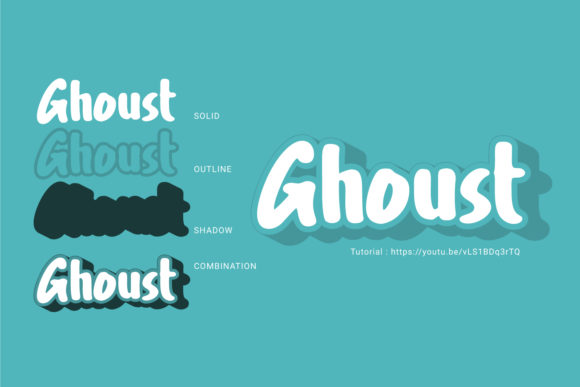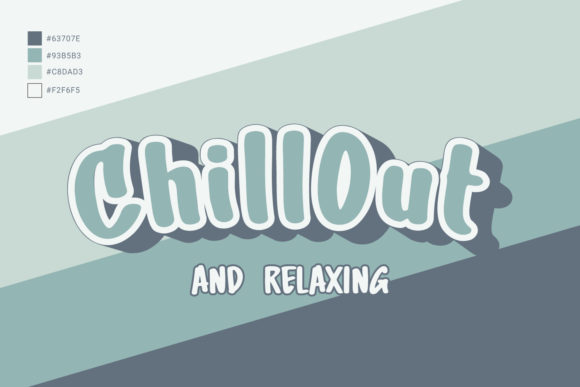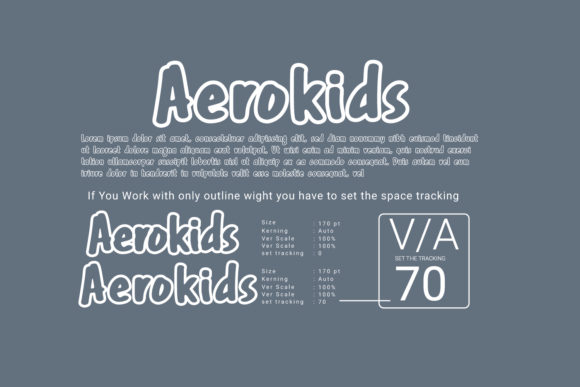
Introduction to Ghoust Font
Ghoust is a graffiti style handwritten font.
👤 Author Cititype
It includes three variations to give you the ultimate package You can mix these three styles to create an authentic graffiti look.
Why Choose Ghoust Font?